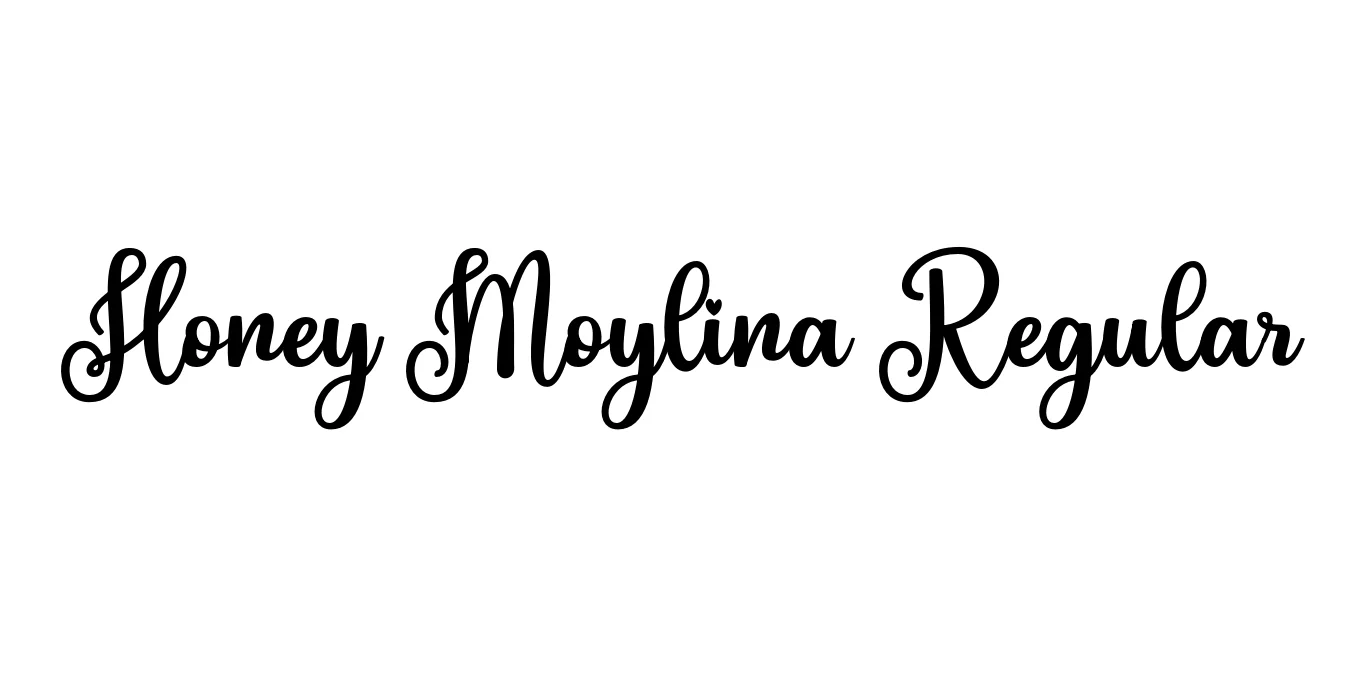
Honey Moylina Regular
Honey Moylina Regular is a sophisticated and elegant script font designed by Letterena Studios. It features a graceful flow with fluid connections between characters, making it an ideal choice for projects that require a touch of luxury and femininity. The font balances modern calligraphy with a clean aesthetic that ensures readability while maintaining a high-end, artisanal feel.
This typeface is particularly effective for high-impact branding, wedding invitations, and editorial design. Its extensive character set and stylized ligatures allow designers to create unique visual identities with ease. Whether used for a minimalist logo or a complex layout, Honey Moylina Regular adds a layer of timeless charm and professional polish to any creative composition.
Honey Moylina Regular Best Uses
Ideal for romantic and elegant invitations and Save-the-Date cards.
Perfect for luxury lifestyle, beauty, and fashion brand logos.
Great for creating aesthetic quotes and visually appealing Instagram stories.
Adds a decorative touch to magazine headers and book covers.